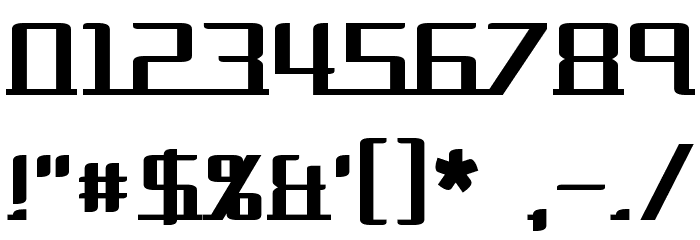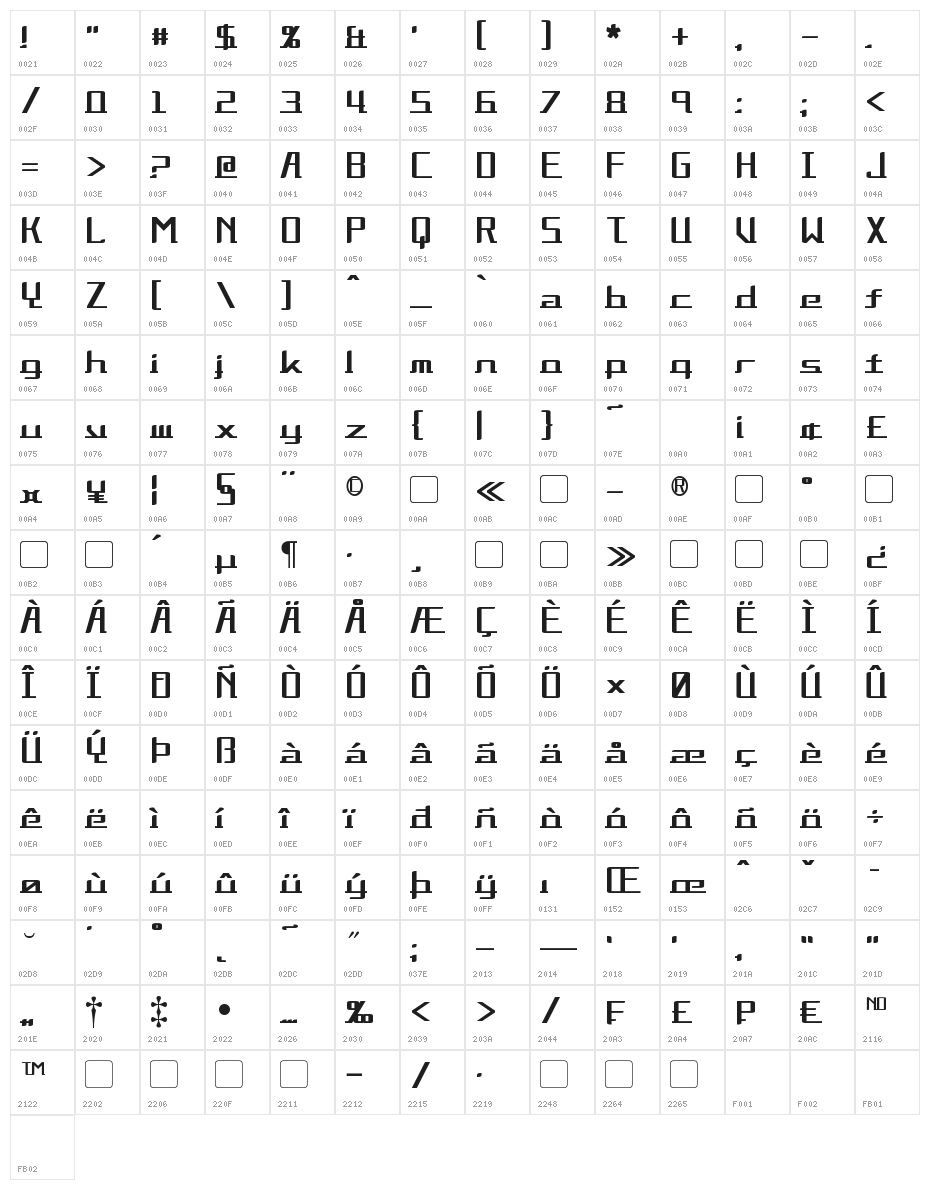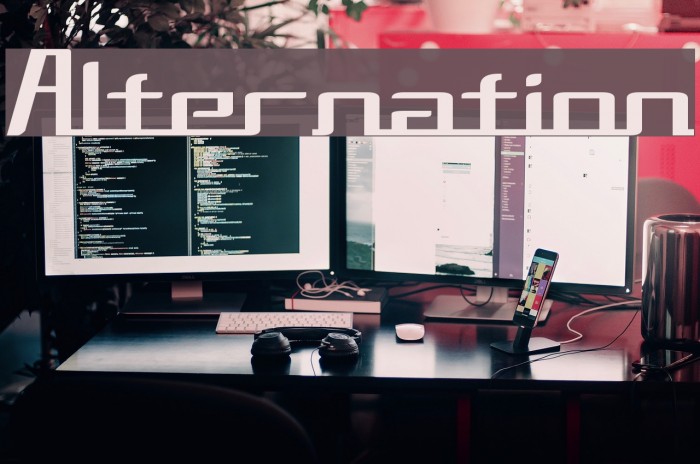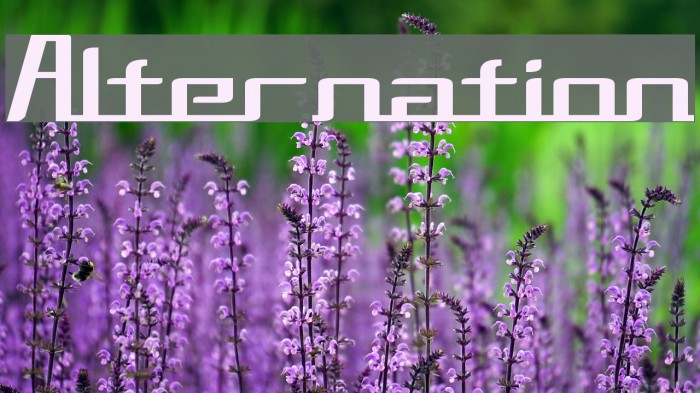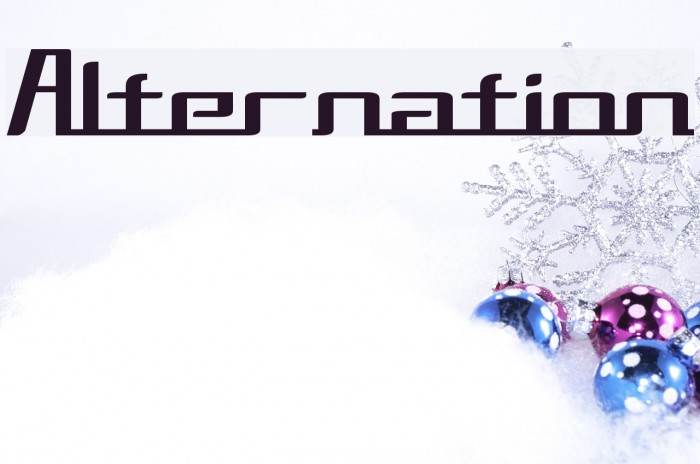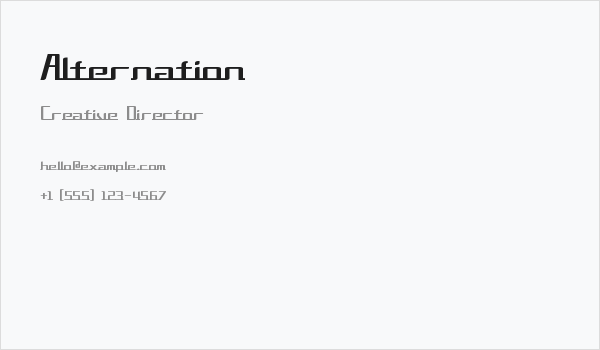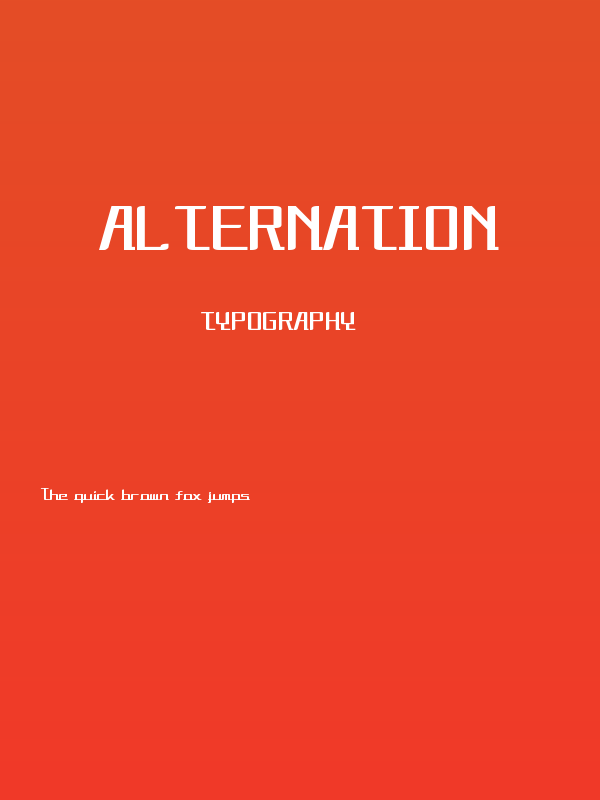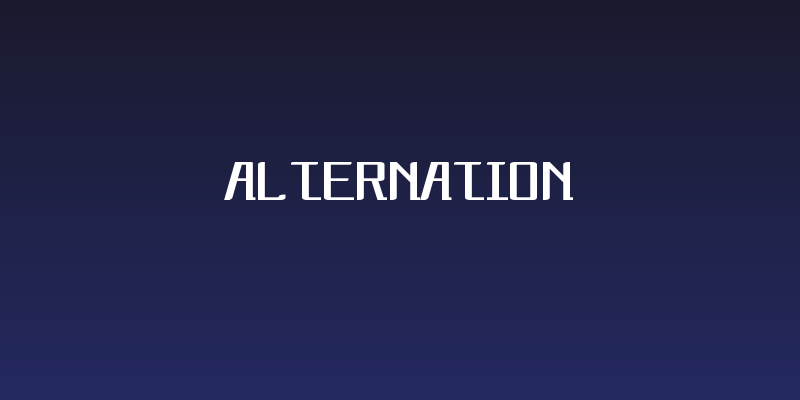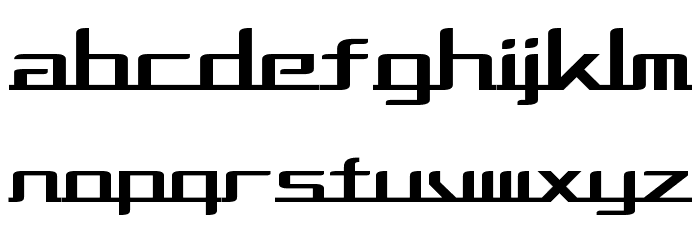
Alternation Font
Alternation Description
This font features a modern, geometric design with a distinct futuristic flair. The characters are constructed with sharp angles and straight lines, giving it a mechanical and digital appearance. The uppercase letters are bold and commanding, while the lowercase letters maintain a consistent style with a slightly narrower build. The numerals are uniform and align well with the overall aesthetic, enhancing the font's cohesive look. Special characters are designed with the same angular precision, making them stand out. The font's unique style makes it suitable for tech-oriented projects, branding, and digital interfaces.